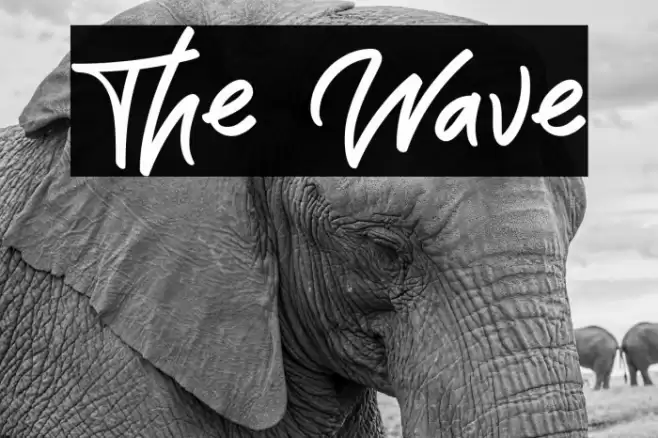
The Wave Font
The Wave Description
This font features a dynamic, flowing script style that mimics natural handwriting. The uppercase letters are elegantly curved with a slight slant, giving them a sense of movement and fluidity. Lowercase letters maintain a consistent style, with some characters extending below the baseline, adding to the font's organic feel. The numerals are clear and legible, matching the overall aesthetic. Special characters are thoughtfully designed to complement the letterforms, making this font versatile for various uses.
A dynamic, flowing script font with a natural handwriting style from Uncategorized fonts.
- Proposed Projects: Ideal for invitations, greeting cards, personal branding, and creative projects that require a personal touch.
- Use Case: Logos, Invitations, Greeting Cards